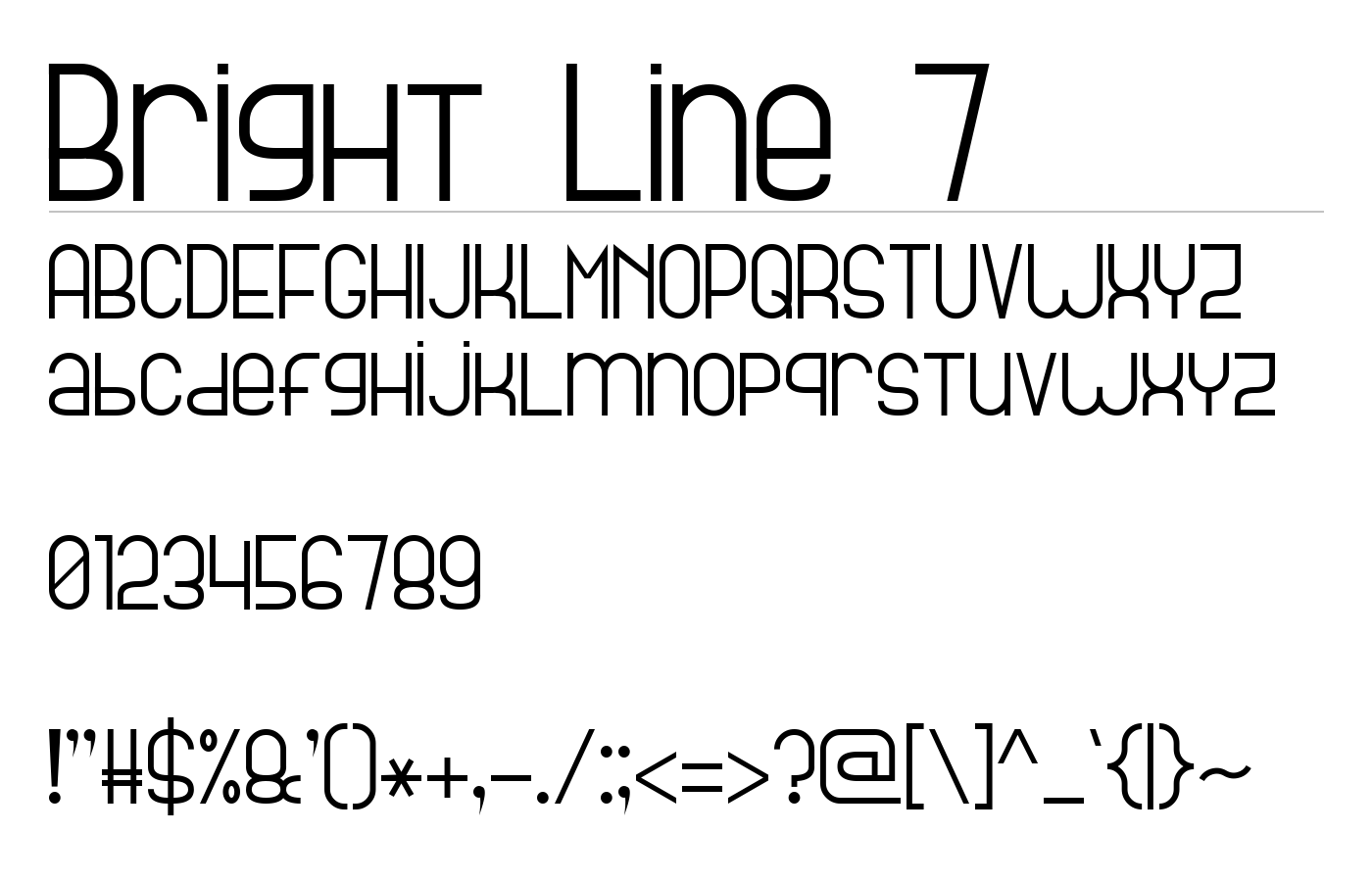
Bright Line 7 is a modern, narrow sans serif font characterized by its clean, geometric lines and tall, condensed letterforms. Its low contrast strokes and sharp angles create a sleek, futuristic feel, making it ideal for contemporary branding, editorial headlines, and tech-focused designs that require a distinctive, minimalistic style. This font’s unique shapes and tight spacing give it a sophisticated yet approachable personality, perfect for projects seeking a fresh, innovative look.
Bright Line 7 Font